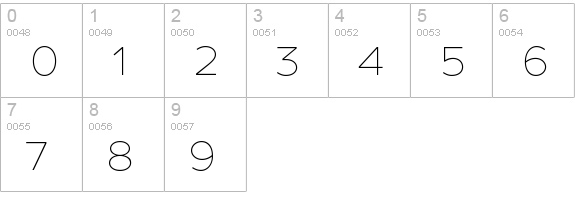
TT Prosto Sans Thin is a delicate, low-contrast variant in the TT typeface family \xE2\x80\x94 well suited to fashion editorial, minimal branding, and high-contrast display.
TT Prosto Sans Thin is a sleek and modern typeface designed for those seeking a clean and minimalist look in their designs. With its thin weight, this font exudes elegance and sophistication, making it perfect for various projects such as branding, editorial design, and web design. What sets TT Prosto Sans Thin apart is not only its stylish appearance but also its versatility. Whether used for headlines, body text, or other design elements, this font adds a touch of sophistication to any project. And the best part? TT Prosto Sans Thin is available for free download at FontsMarket.com, making it accessible to anyone looking to elevate their designs with a high-quality typeface. Don't miss out on the opportunity to enhance your projects with this beautiful and versatile font.